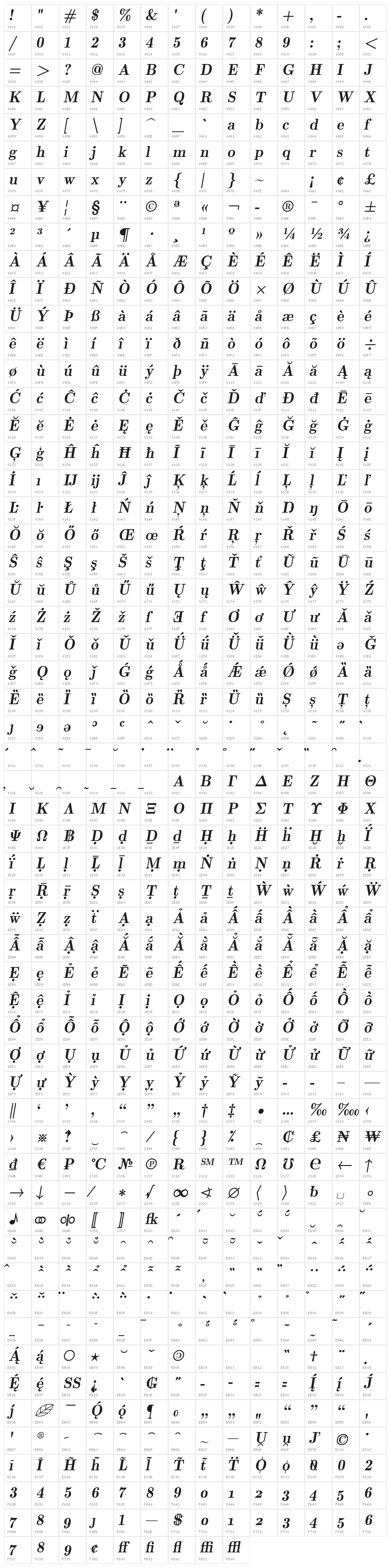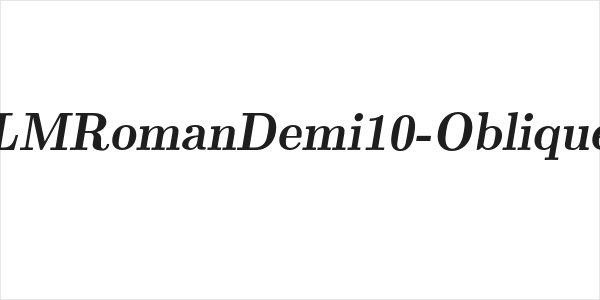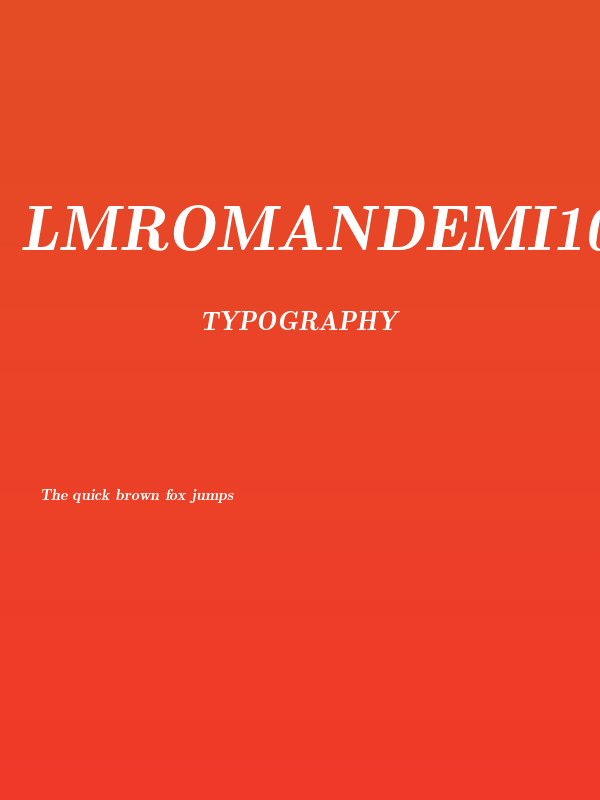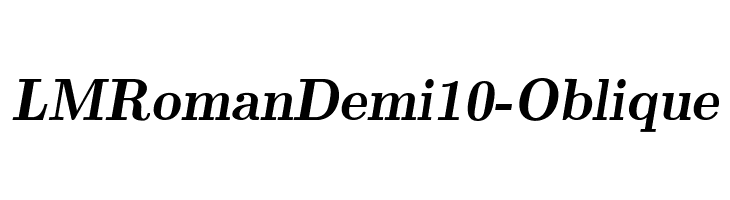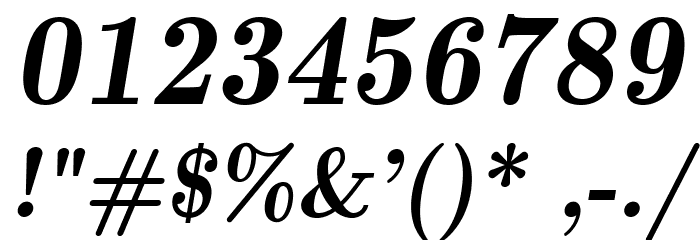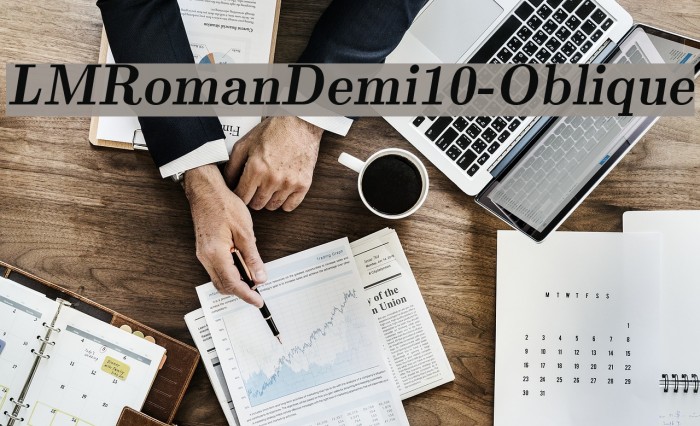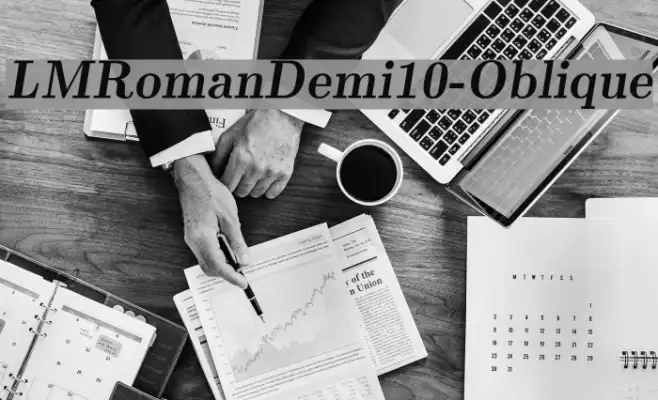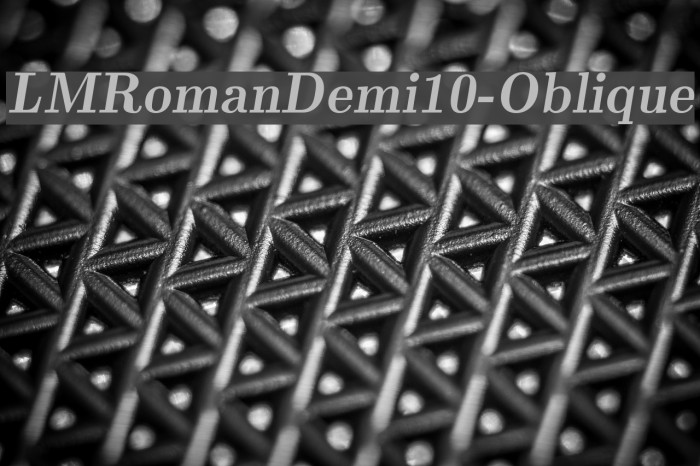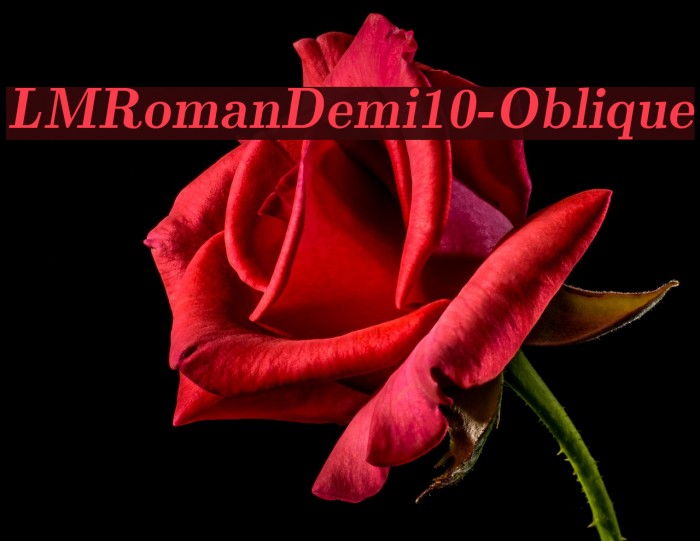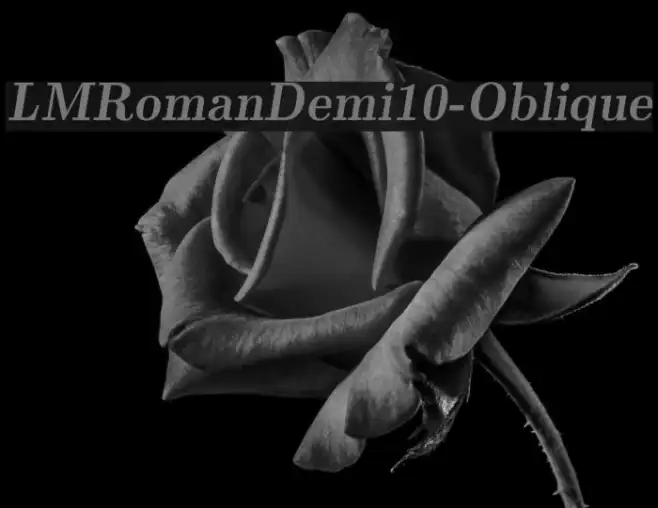
LMRomanDemi10-Oblique Font
LMRomanDemi10-Oblique Description
This font exhibits a classic and elegant style with a slight oblique slant, giving it a sophisticated and dynamic appearance. The serifs are pronounced yet refined, adding a touch of formality and tradition. The uppercase letters are well-proportioned, while the lowercase characters maintain a consistent flow, enhancing readability. The numerals are clear and distinct, making them suitable for various applications. Special characters are designed with attention to detail, ensuring they blend seamlessly with the overall font style. The font's oblique nature adds a sense of movement and grace, making it ideal for projects that require a touch of elegance.
| Overall Style | Classic |
| Use Case | Headlines, Body text, Logos |
| Proposed Projects | Ideal for book covers, formal invitations, editorial design, and branding projects that require a touch of elegance. |